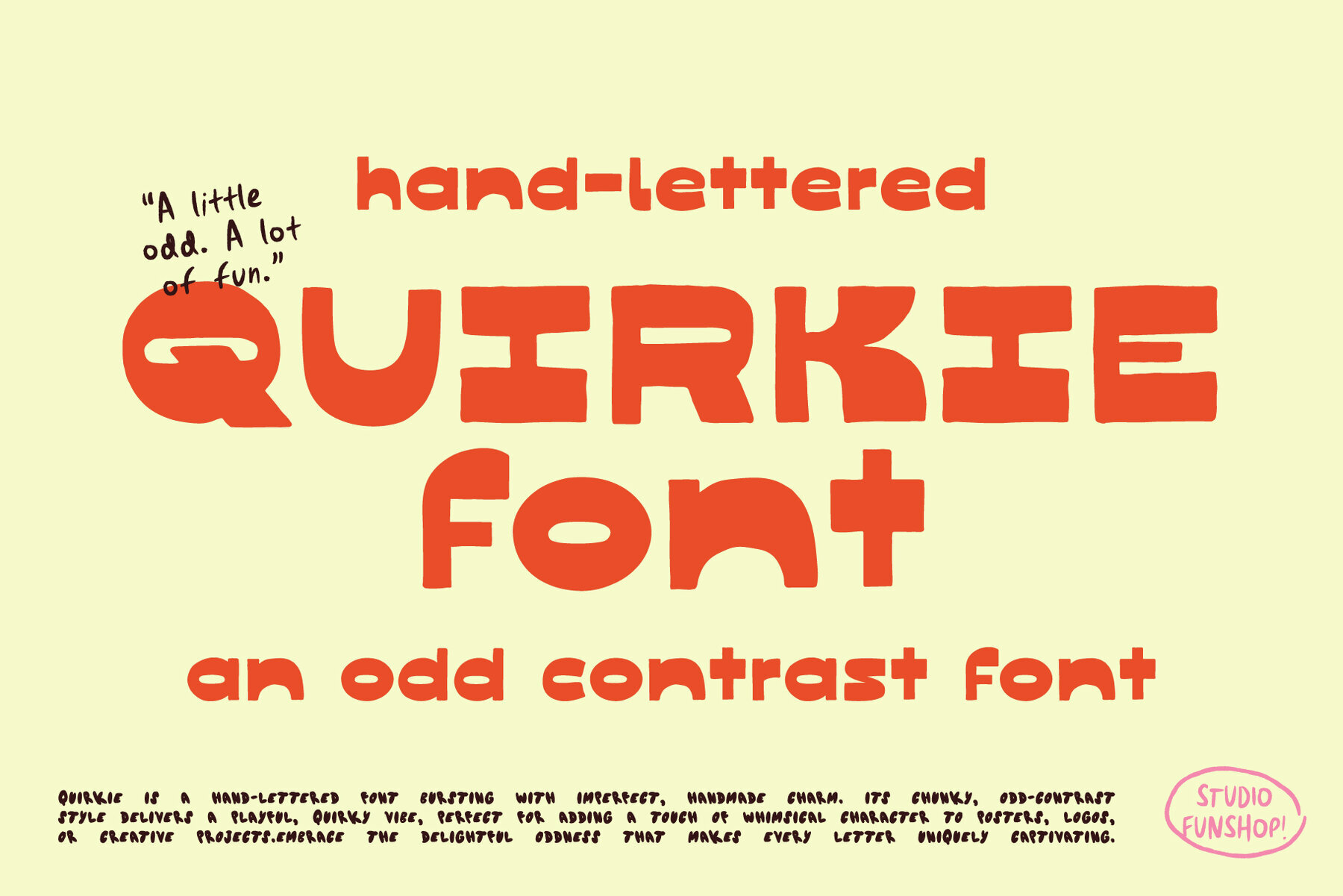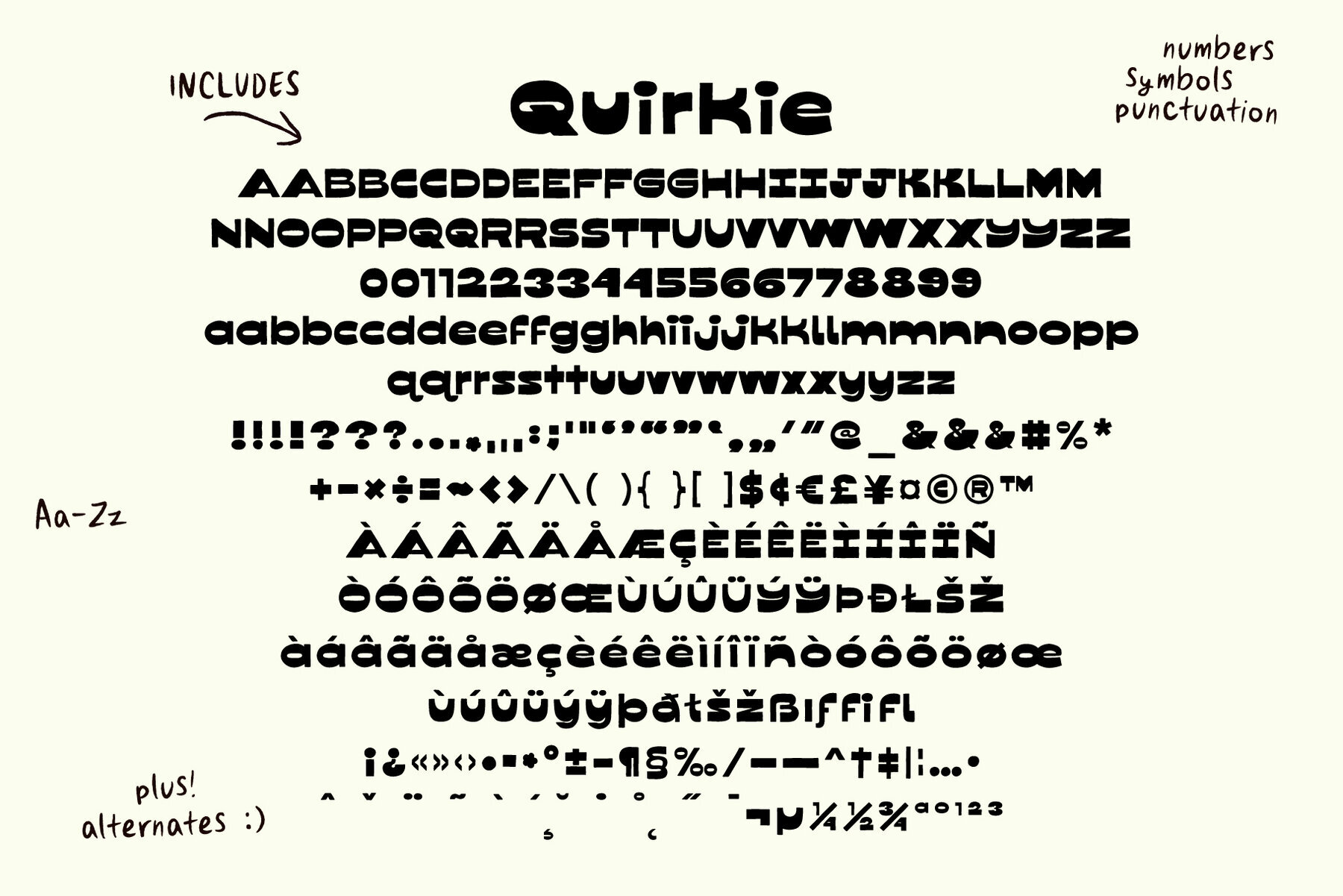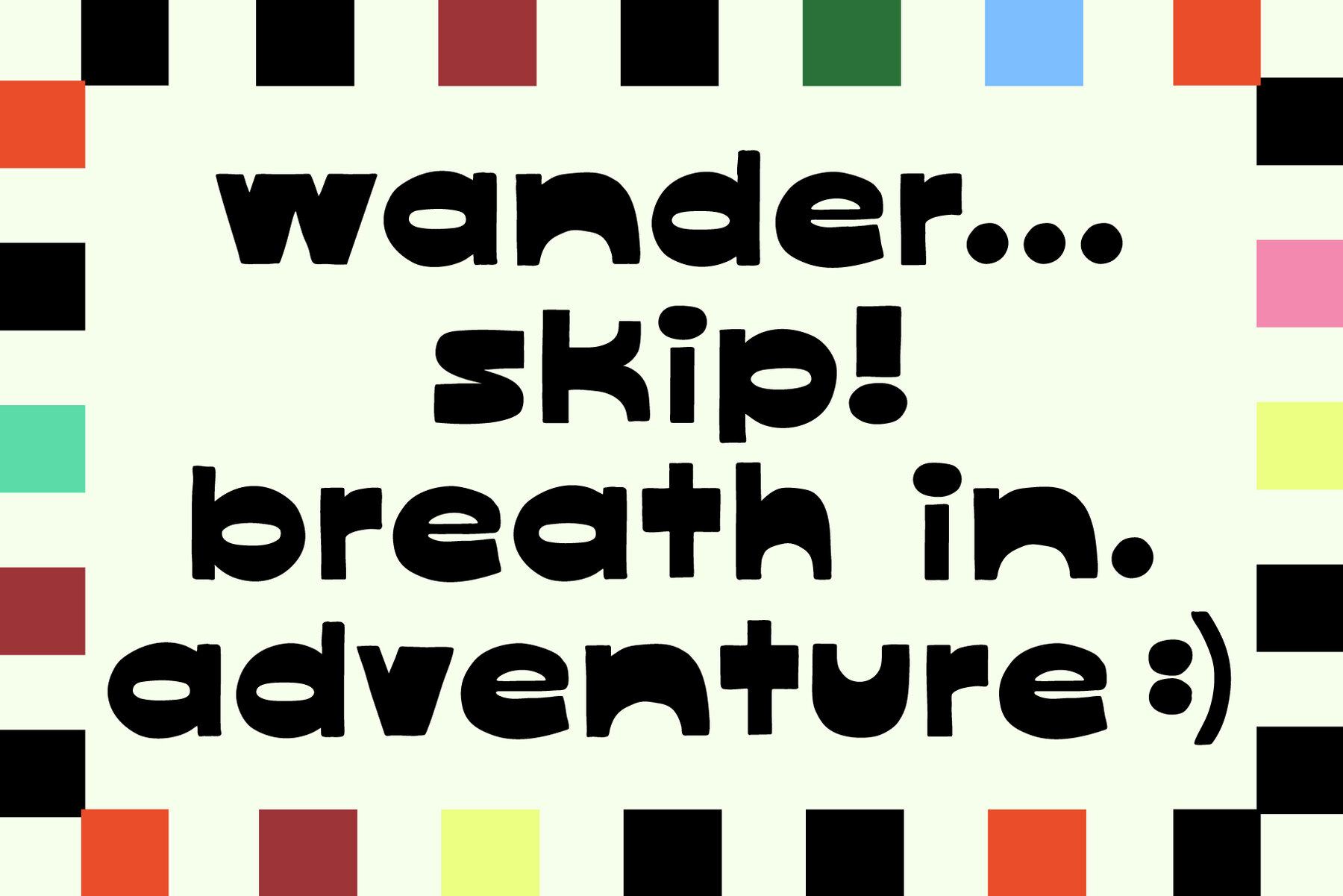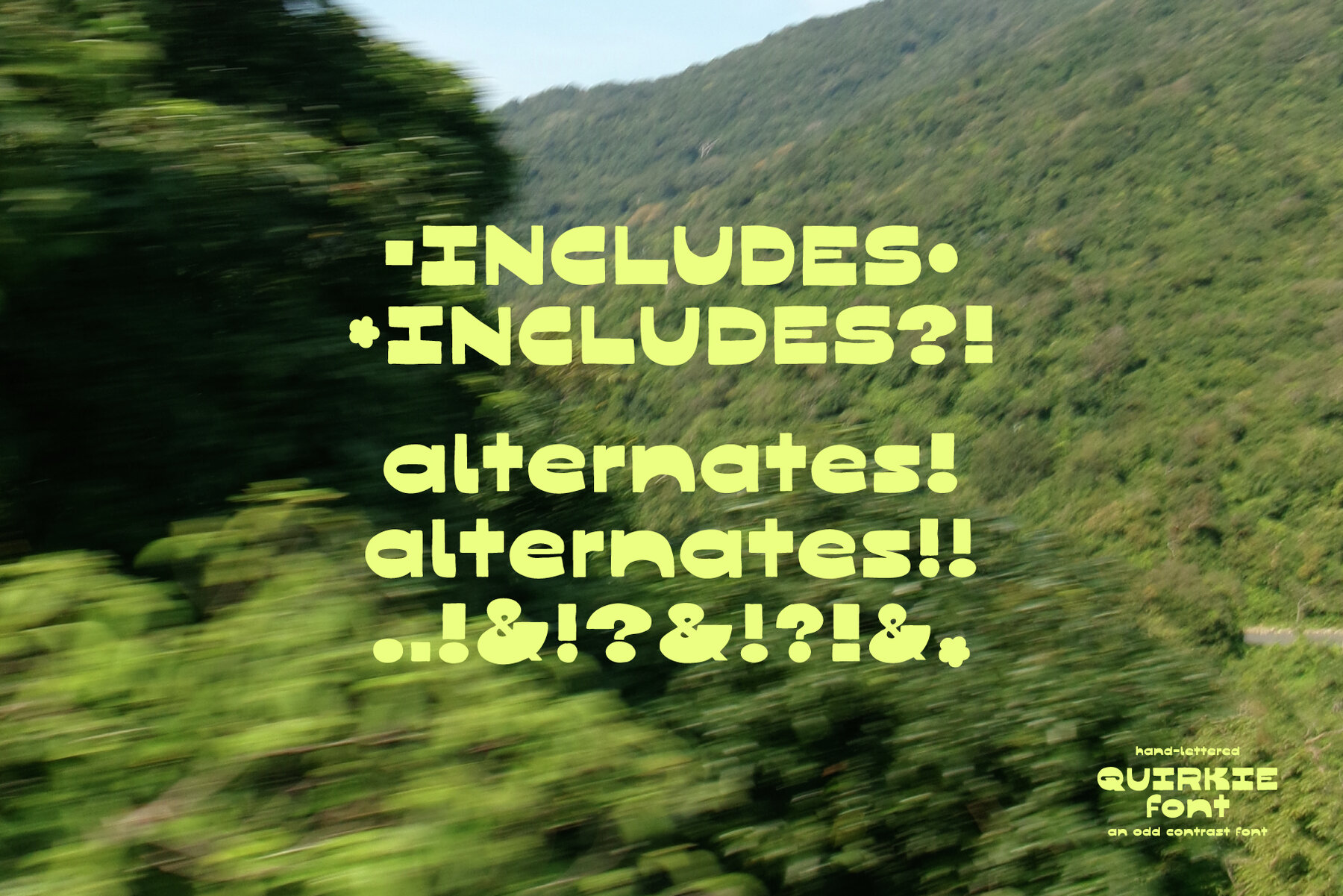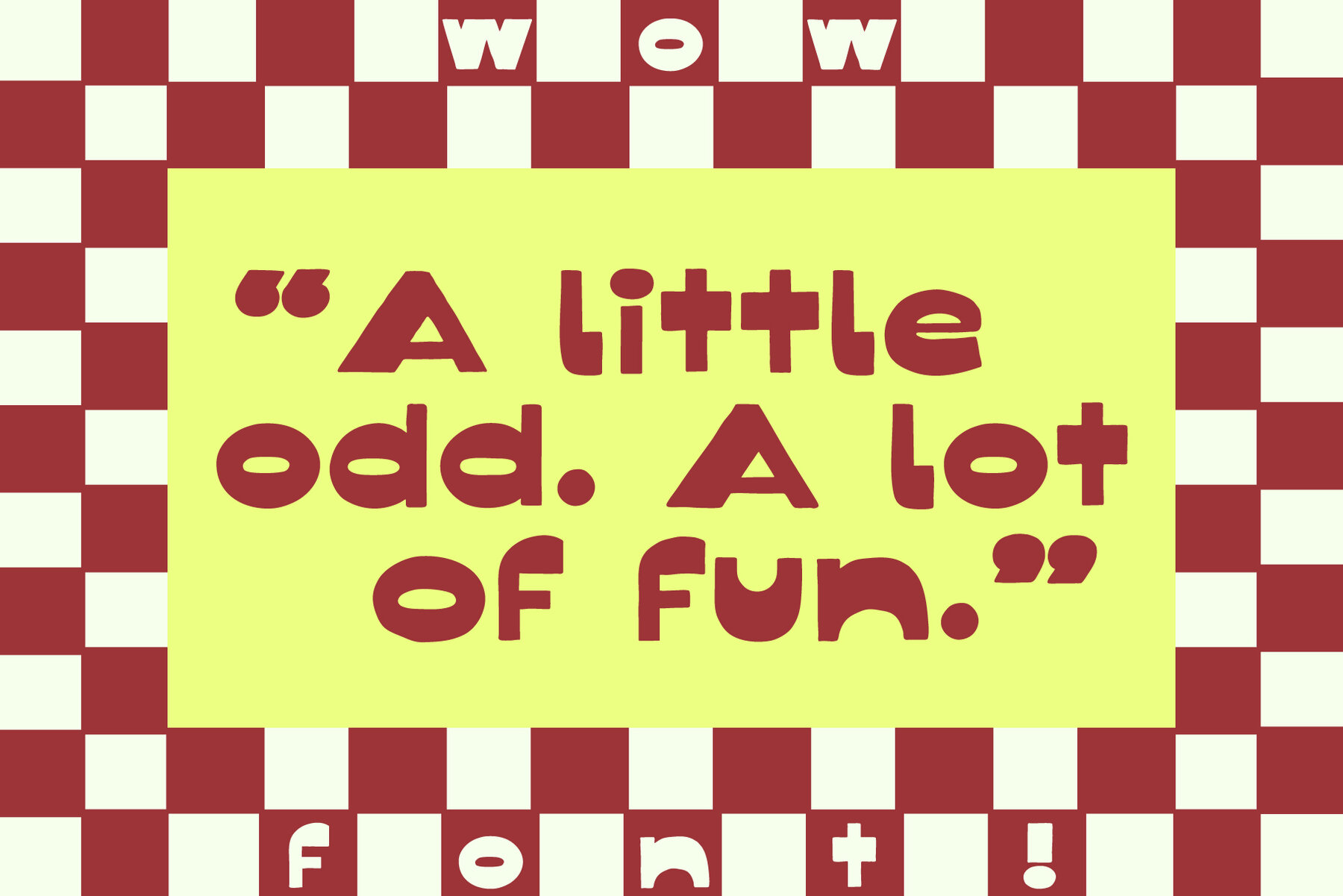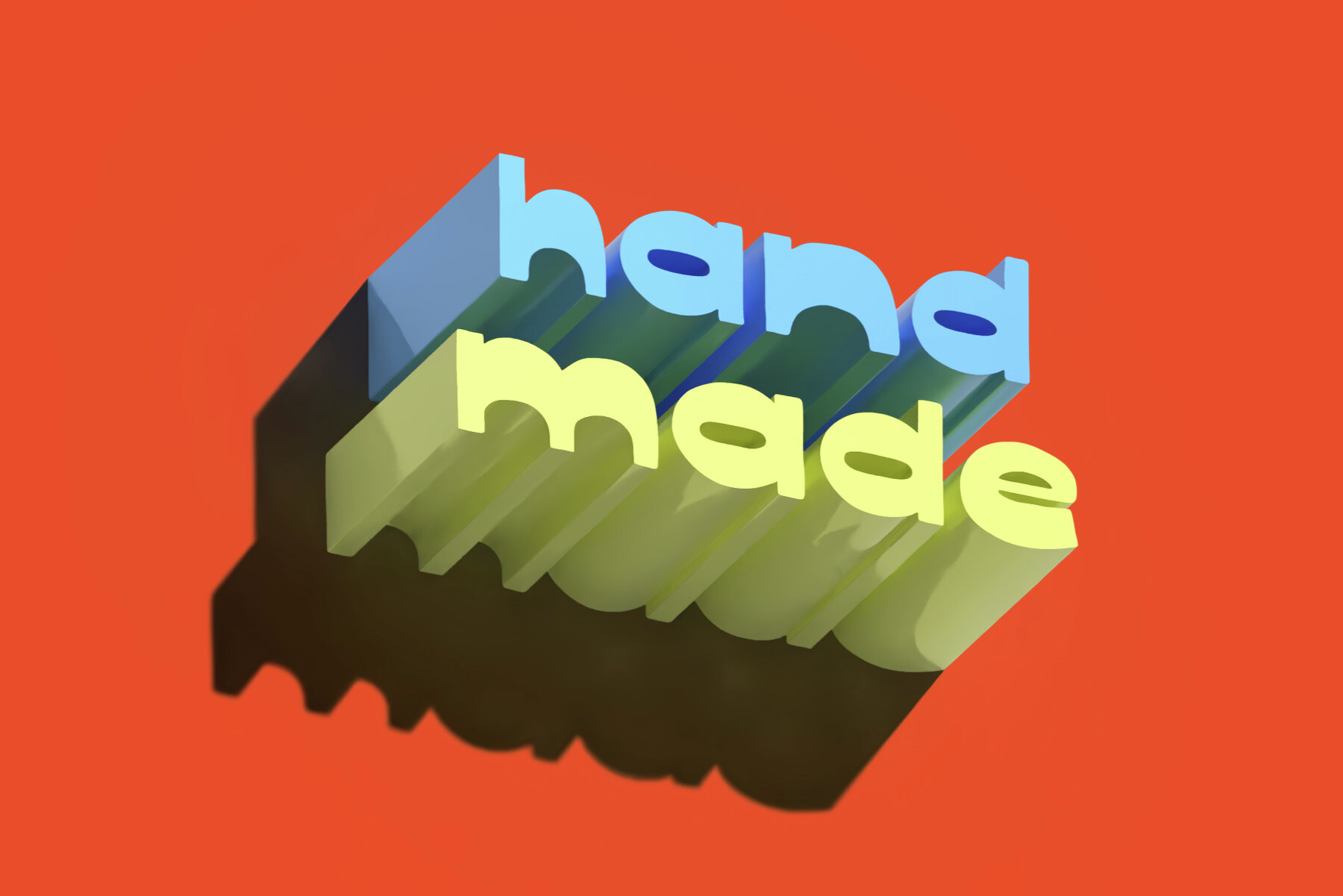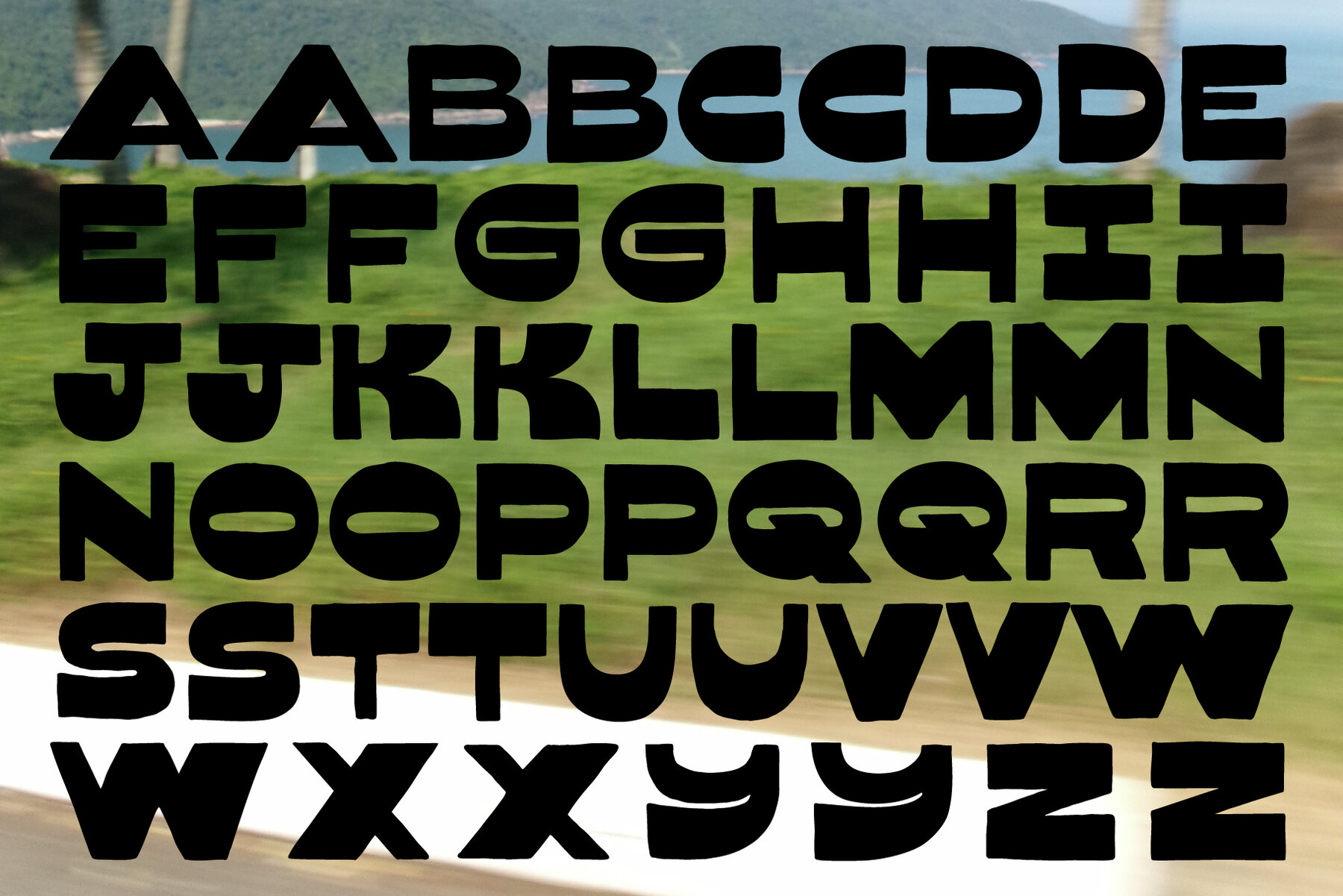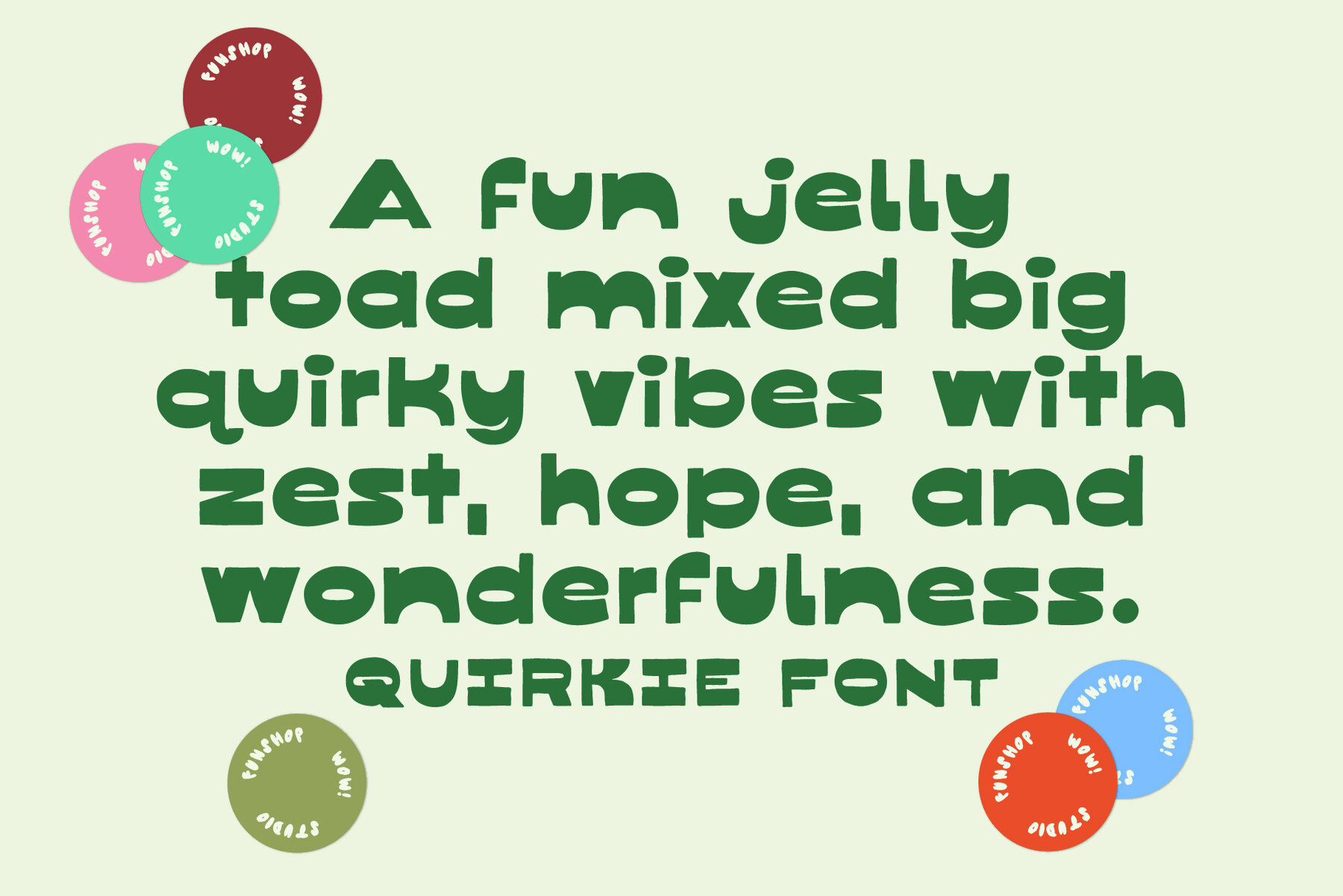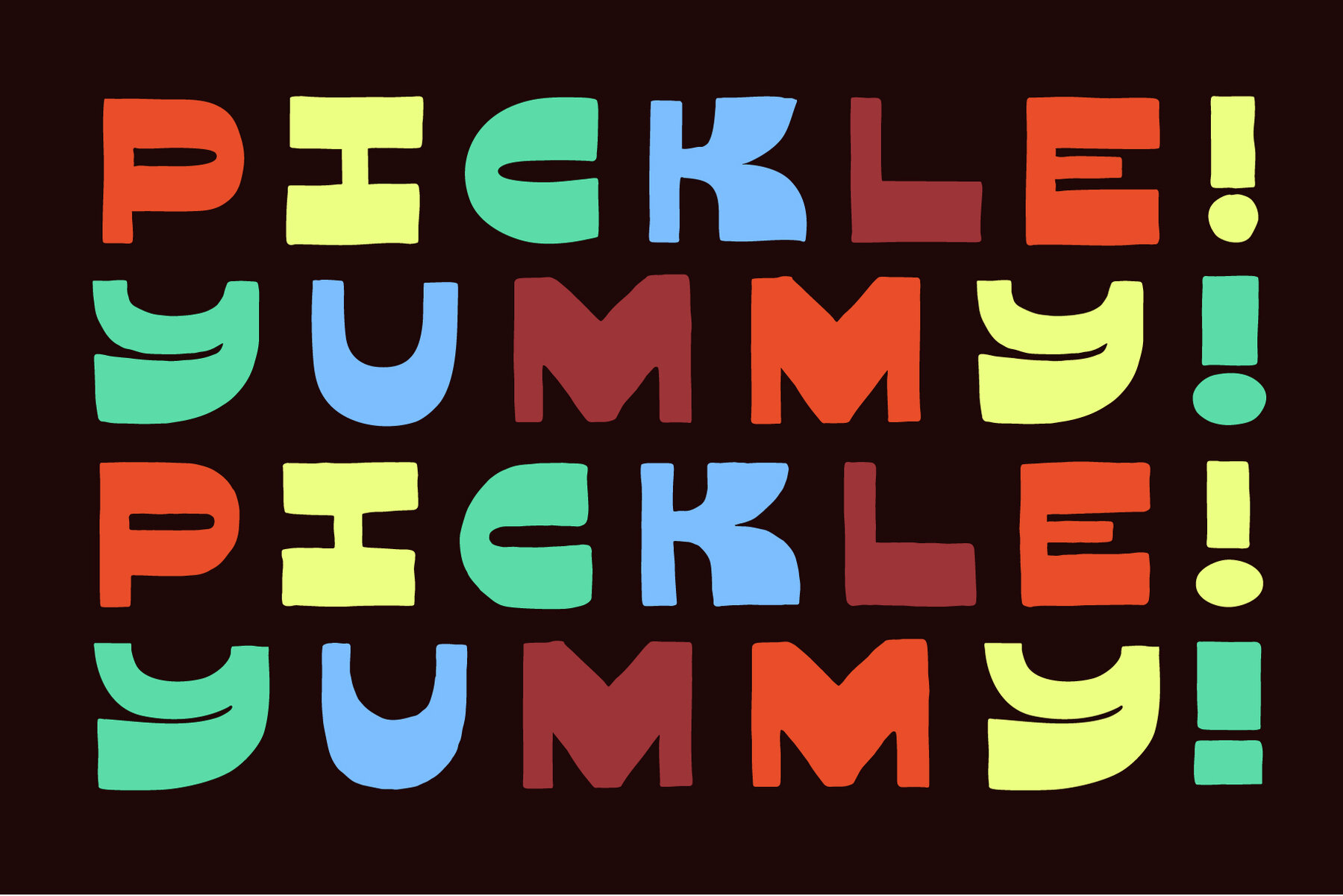
Quirkie Font
Hello Quirkie
Quirkie is a hand-lettered font that infuses any project with an imperfect, handmade touch. Its chunky, unique contrasts offer a playful and quirky vibe, teeming with personality and a carefree spirit. Every letter in Quirkie is meticulously hand-drawn, ensuring a truly distinctive look. The font includes alternates for personalized customization, giving you the creative flexibility to craft your vision.Quirkie: Hand-Lettered Font with Playful Character